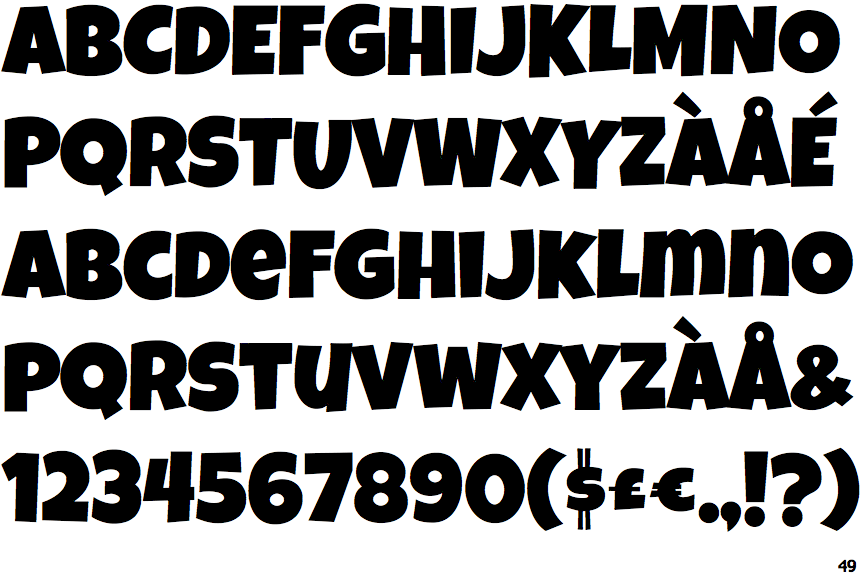
Luckiest Guy Font Similar. Browse our collection of fonts similar to luckiest softie pro: Browse our collection of fonts similar to luckiest guy pro:
But, the molly sans font is most similar to this textured. Fonts most similar to 'luckiest guy': What is luckiest guy font generator?
Before installing the luckiest guy font in os x, you must first completely close all applications. Large and in charge, this offbeat, lovably legible font lends itself to all sorts of uses. Script1 rager hevvy normal font;
What is luckiest guy font generator? Browse our collection of fonts similar to luckiest guy regular: Like many other fonts, this font is also license free which makes it a complete package.
Browse our collection of fonts similar to luckiest guy pro: All the fonts in this package are free to use and have engaging colorful and broad lines. Making the web more beautiful, fast, and open through great typography.
Is there any font similar to luckiest guy in google fonts? Take luckiest guy for a spin and let him pack a. Yes, you can use the luckiest guy font on the online platform.
But, The Molly Sans Font Is Most Similar To This Textured.